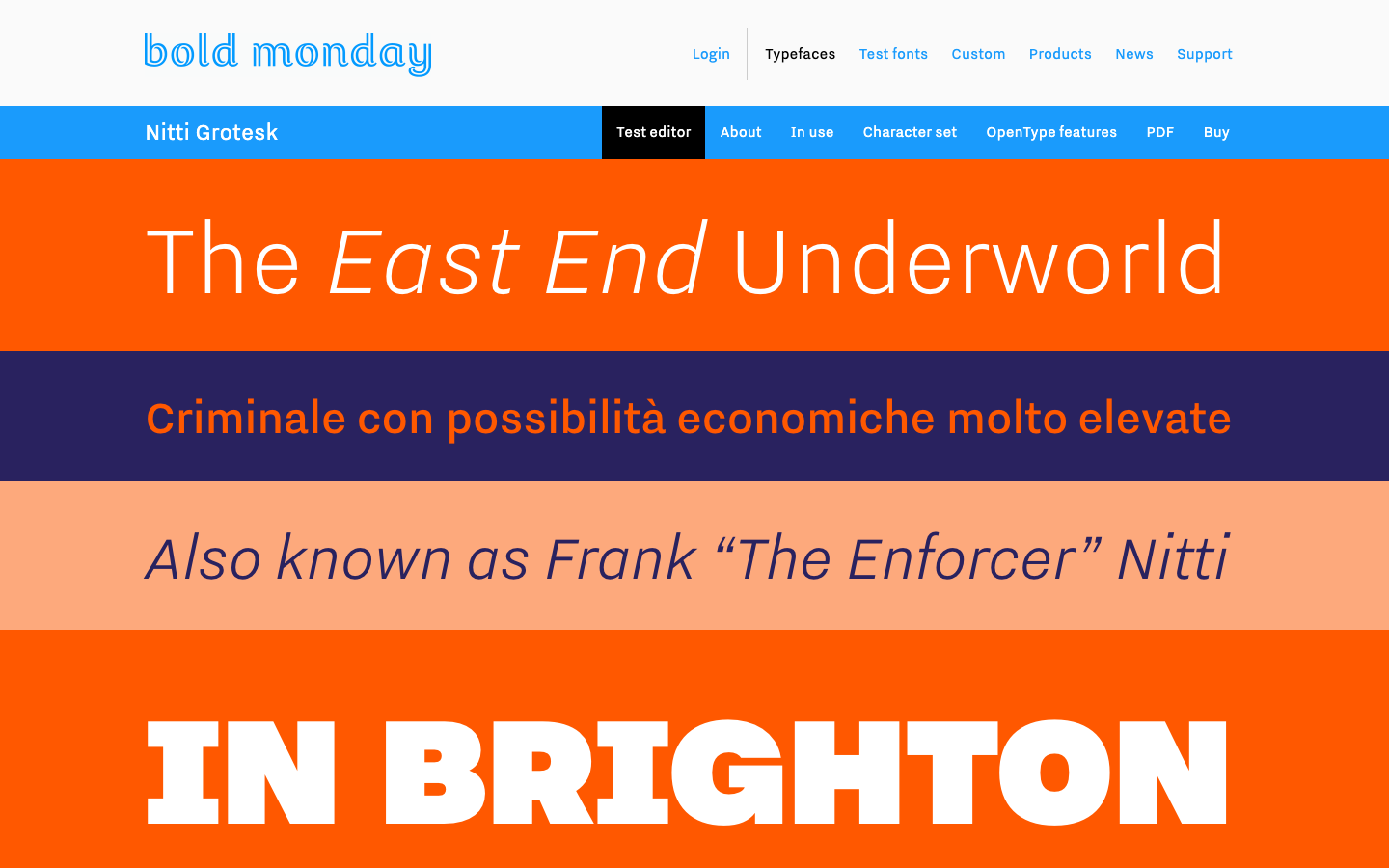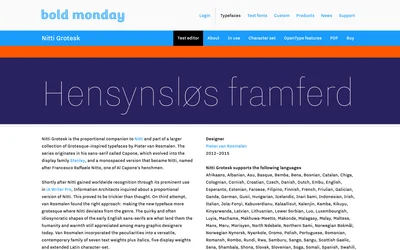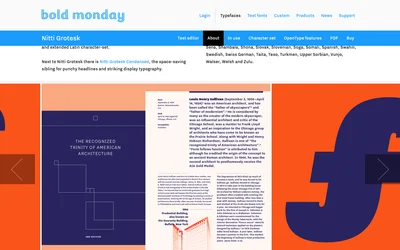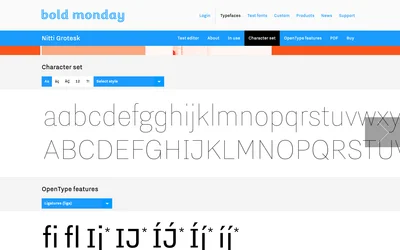
ABC Diatype vs Nitti Grotesk
ABC Diatype and Nitti Grotesk are both sans-serif typefaces sharing a neo-grotesque foundation. Compare which suits your Branding project.
| Feature | ABC Diatype | Nitti Grotesk |
| Variable Font | Yes | No |
| Weights | Variable | Multiple |
| Source | Dinamo | Bold Monday |
Recommended: ABC Diatype
- Suited for Apps and Corporate
- Available as a variable font